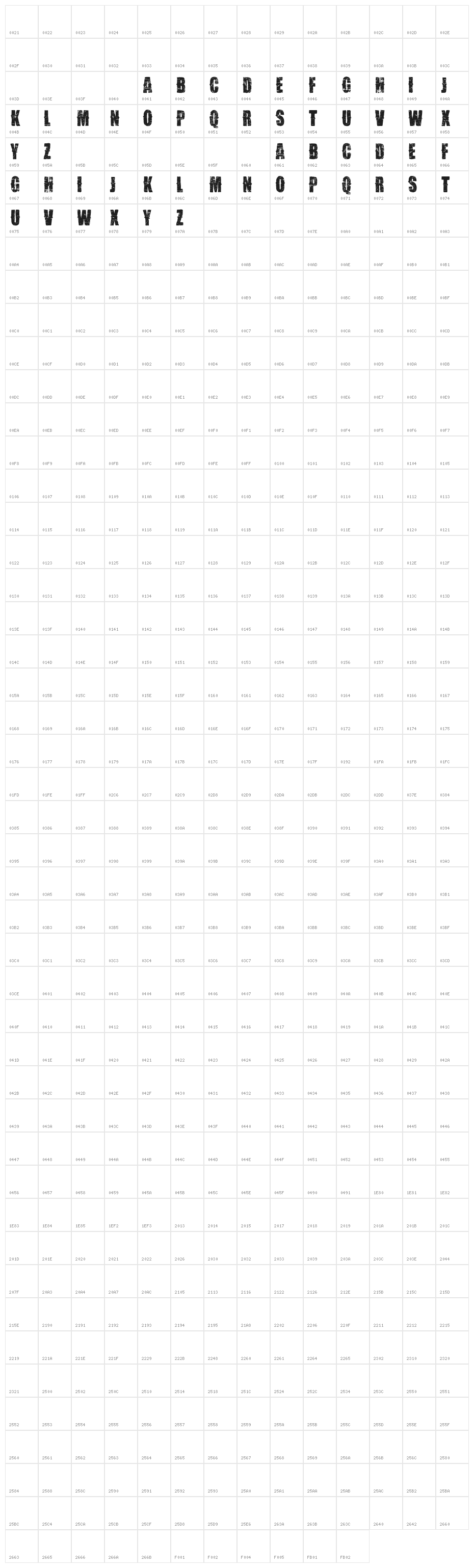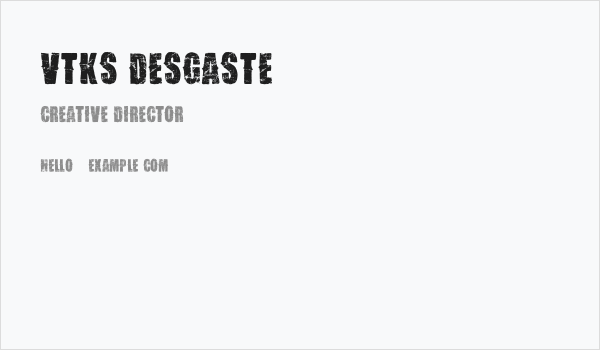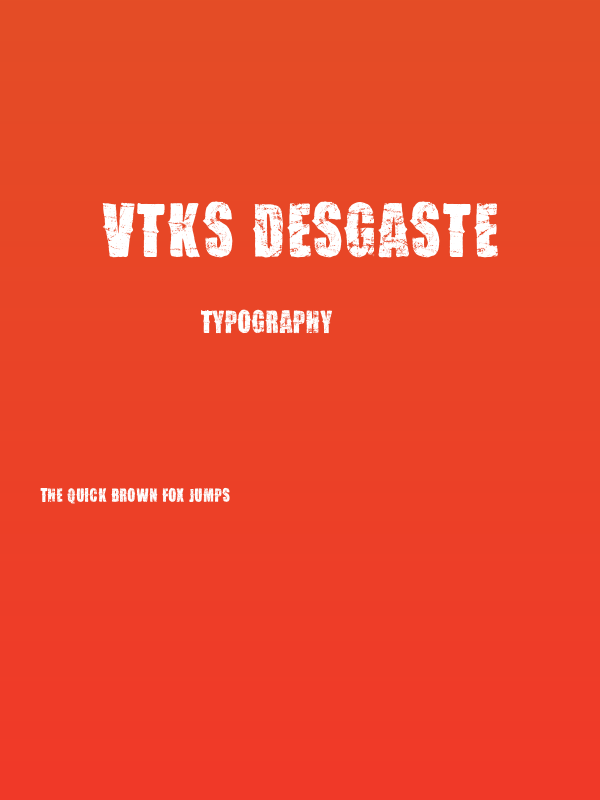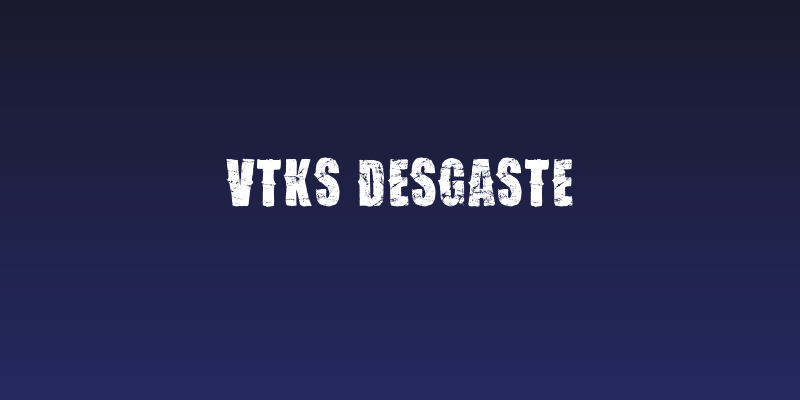
Vtks Desgaste Font
Vtks Desgaste Description
This font features a distressed, grunge style with a bold and rugged appearance. The characters are heavily textured, giving them a worn and weathered look, reminiscent of aged posters or vintage signage. The uppercase letters are prominent and impactful, making them suitable for attention-grabbing designs. The font's rough edges and irregularities add to its charm, providing a sense of authenticity and rawness. It is ideal for projects that require a bold statement or an edgy, urban feel. The font's unique style makes it perfect for creative designs that aim to stand out.
| Overall Style | Grunge, Vintage |
| Proposed Projects | Ideal for posters, album covers, streetwear branding, and urban-themed designs. |